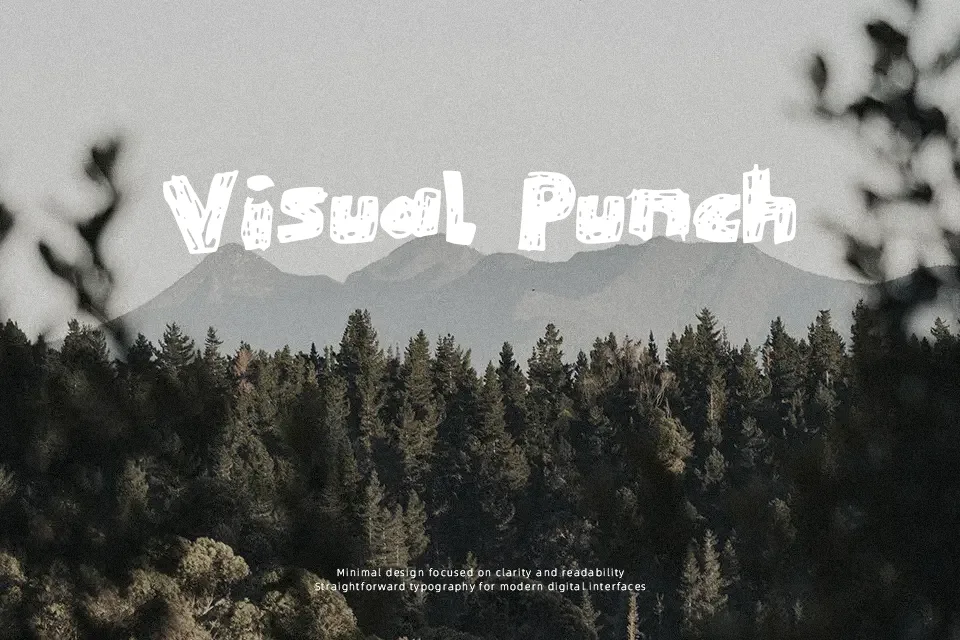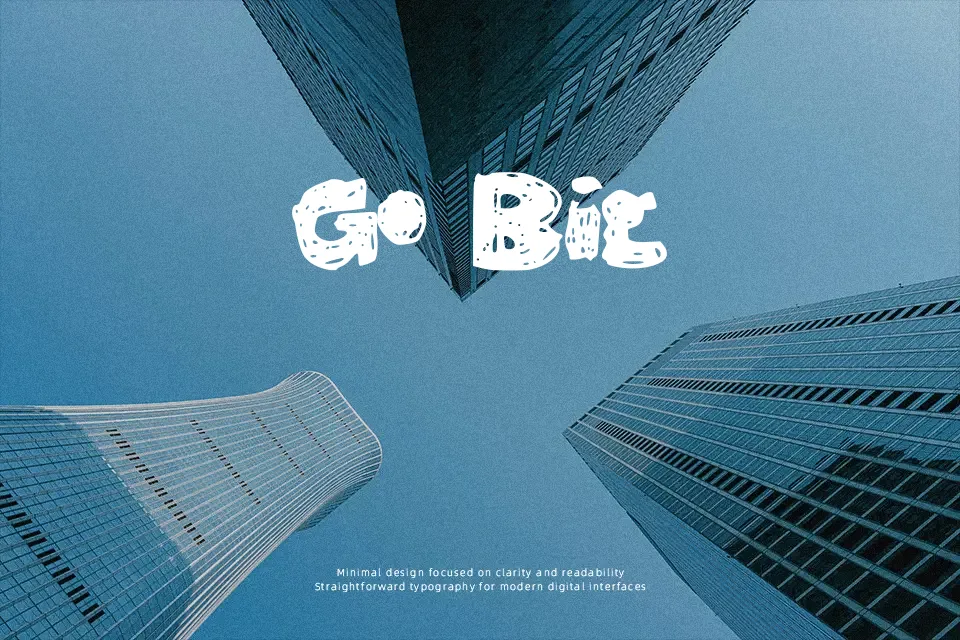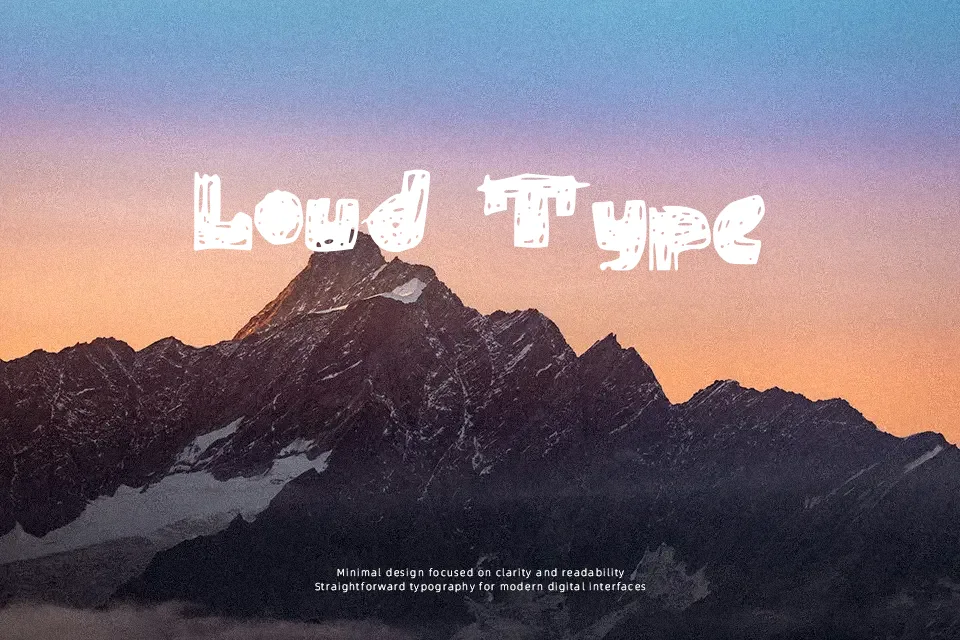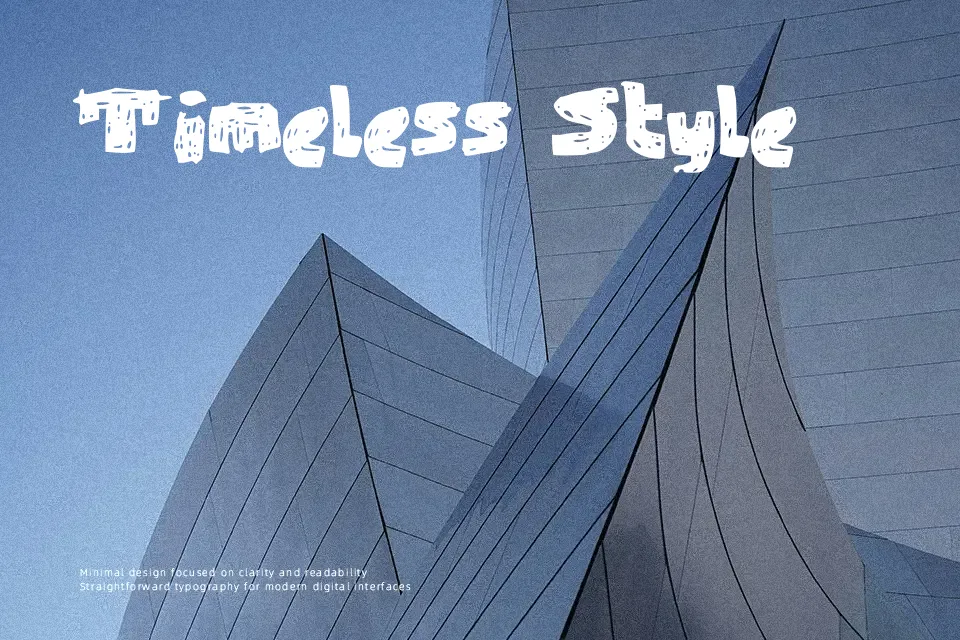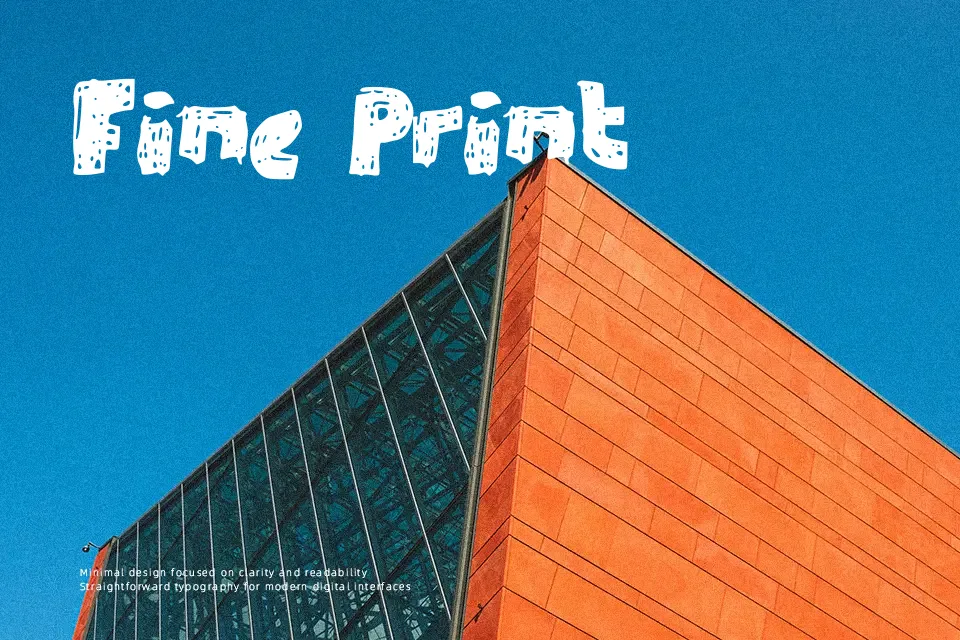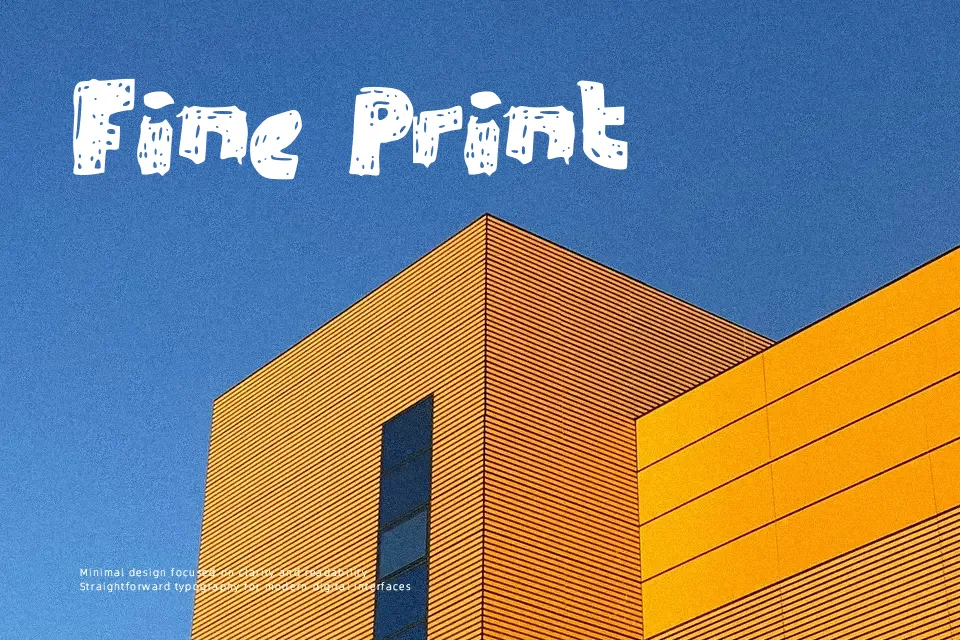
Skribble Black Font
Designed by Winter Design Studio
Skribble Black Font features ultra-heavy stroke weights, irregular hand-drawn contours, and playful geometric proportions across its character set. The letterforms display generous internal counters alongside tight character spacing, generating a chunky and rhythmic visual texture suited for large scale presentation. Uppercase letters maintain prominent visual weight, while the numerals harmonize seamlessly with the broader decorative aesthetic. In practical design work, the typeface excels across merchandise graphics, children’s animated titles, amusement park signage, and vibrant promotional flyers. However, the dense weight and organic outlines reduce letter distinction at diminutive sizes, making the design unsuitable for continuous body text, mobile user interfaces, or compact technical captions.
Best For: children’s book covers, animated title cards, toy packaging, party flyers
Not Ideal For: continuous body text, mobile app interfaces, formal corporate reports, technical data tables